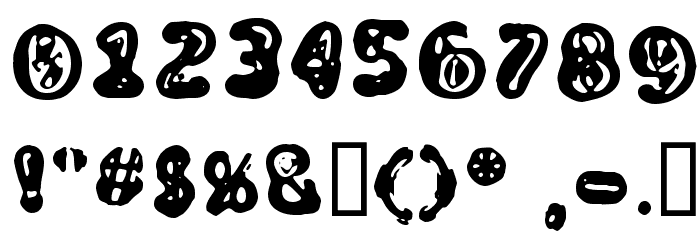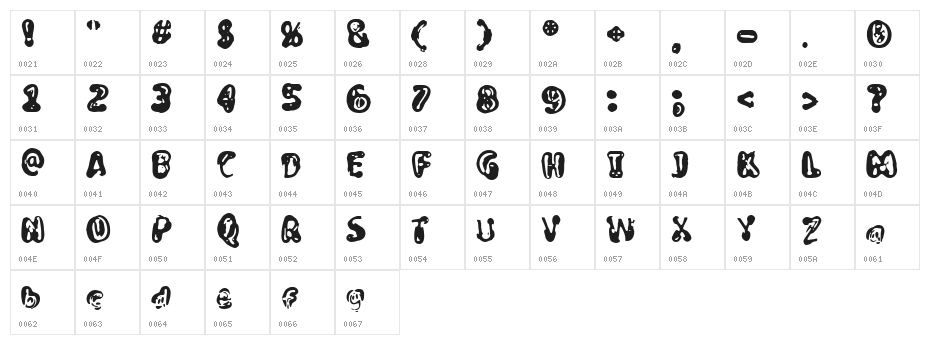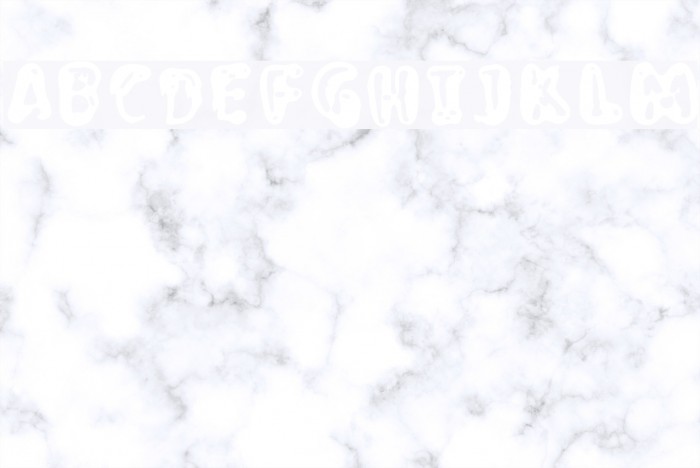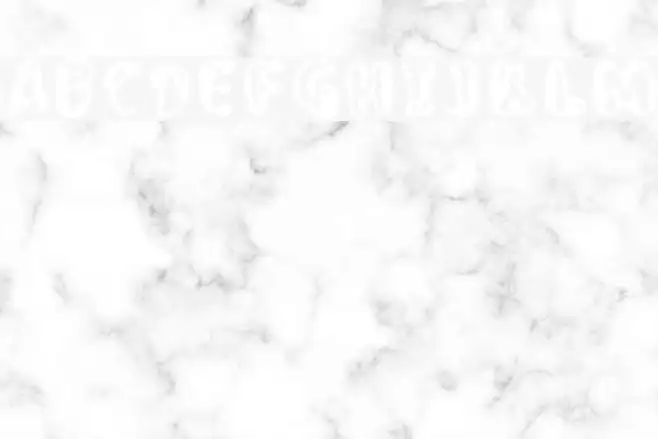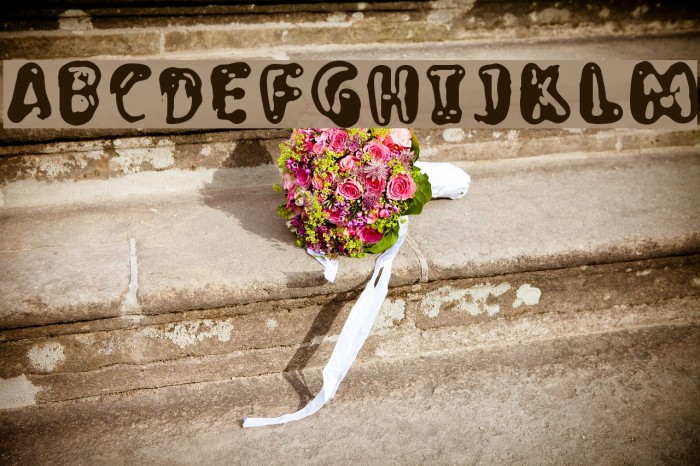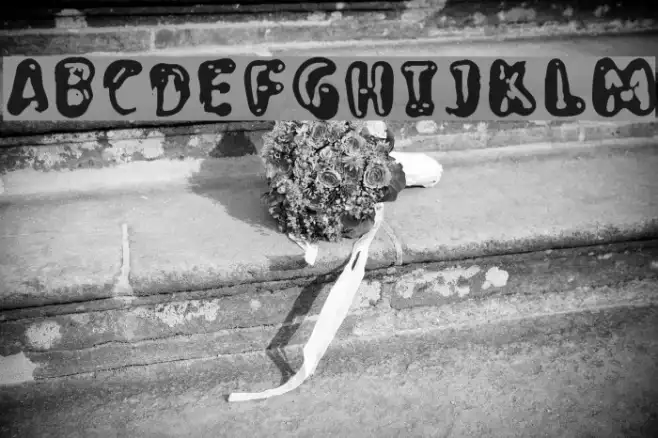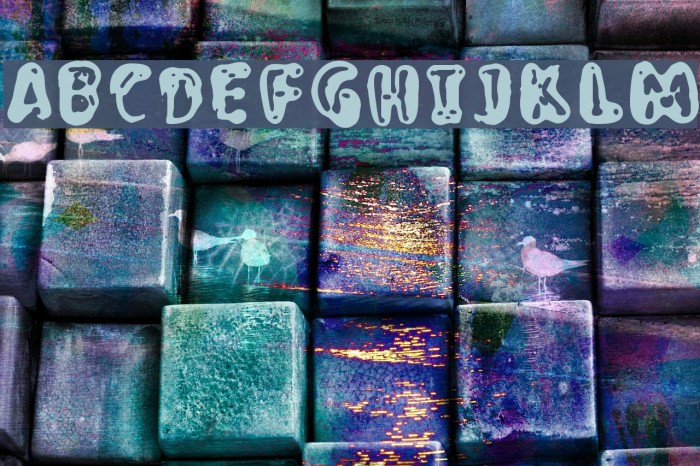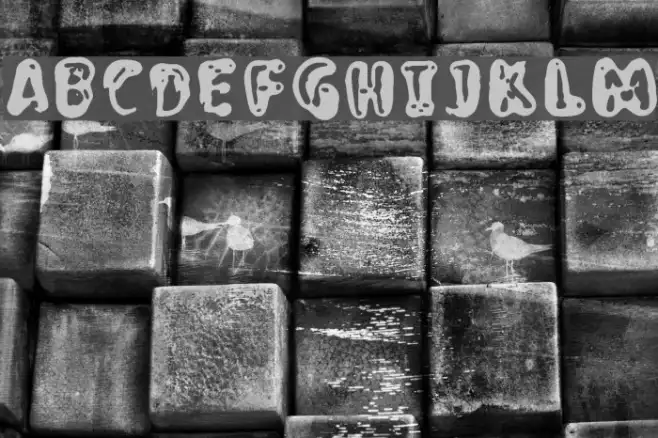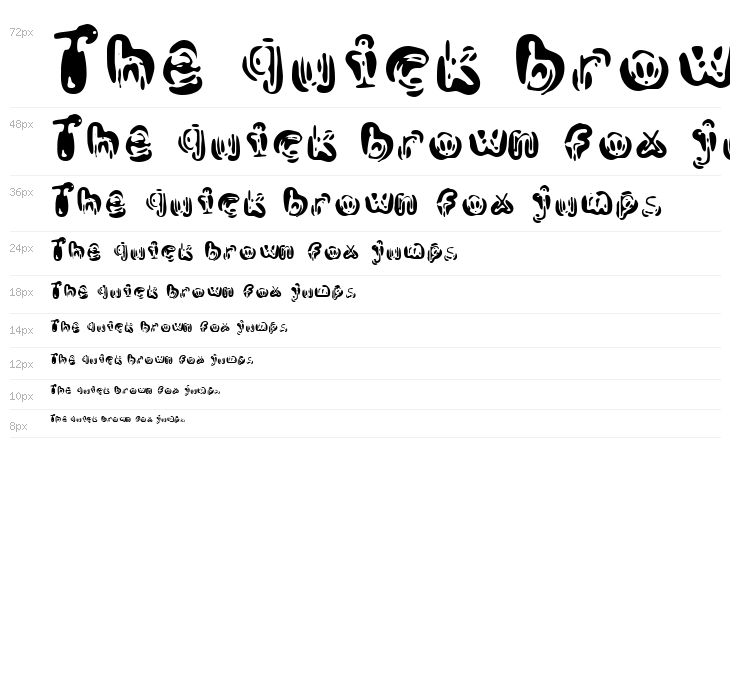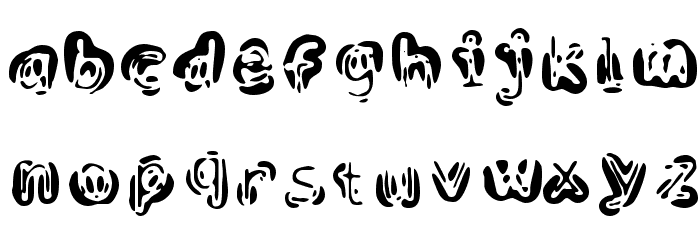
Noyes Font
Noyes Description
This font features a playful and whimsical style, characterized by its bold and irregular shapes. Each character appears as if it is melting or dripping, creating a dynamic and eye-catching effect. The letters have a strong presence with their thick strokes and unique, organic forms. The font's design is highly decorative, making it suitable for creative and artistic projects. Its distinct appearance ensures that it stands out, making it ideal for use in contexts where attention-grabbing text is desired.